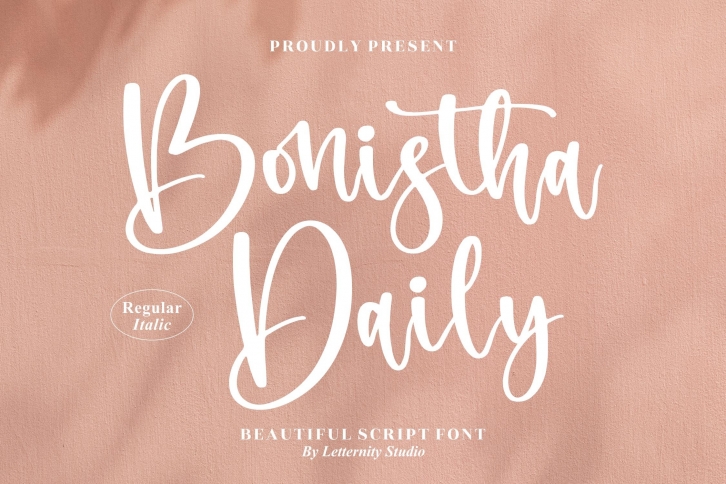
Bonistha Daily - Beautiful Script Font, from Letternity Studio, is a beautiful script font, suitable for any projects such as: logos, branding projects, homeware designs, product packaging, mugs, quotes, posters, shopping bags, t-shirts, book covers, name card, invitation cards, greeting cards, label, photography, watermark, special events, and all your other lovely projects that need a beautiful script taste.